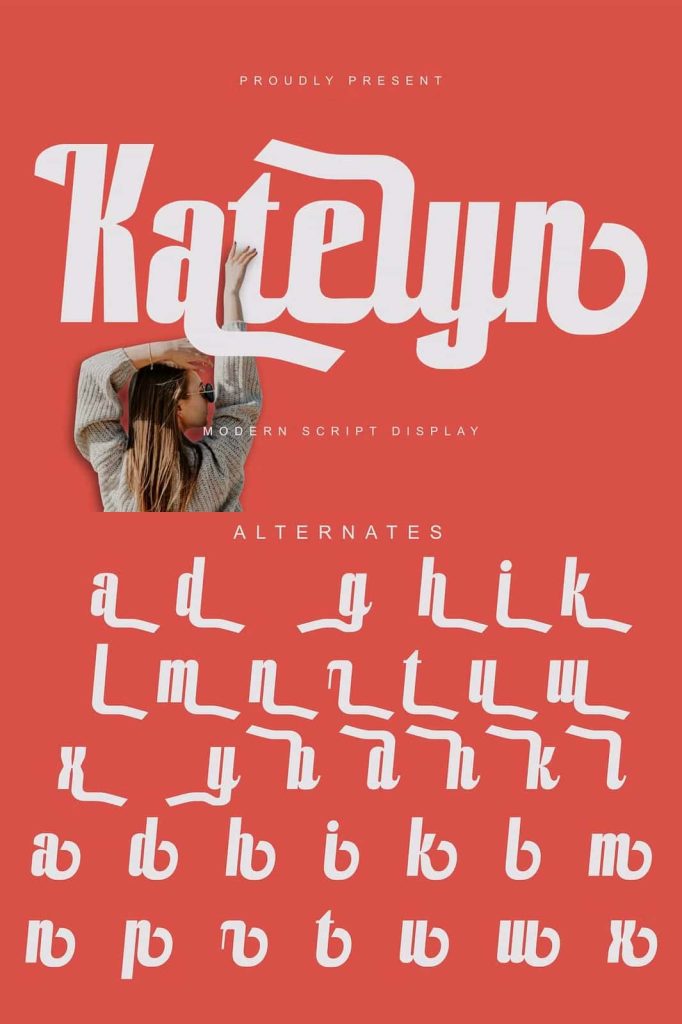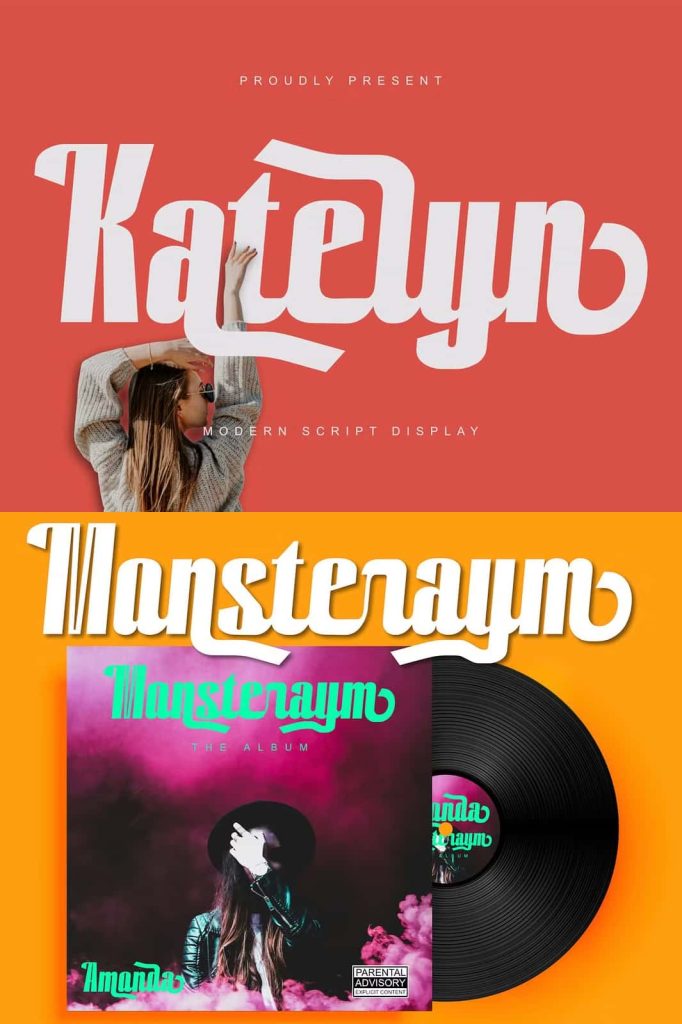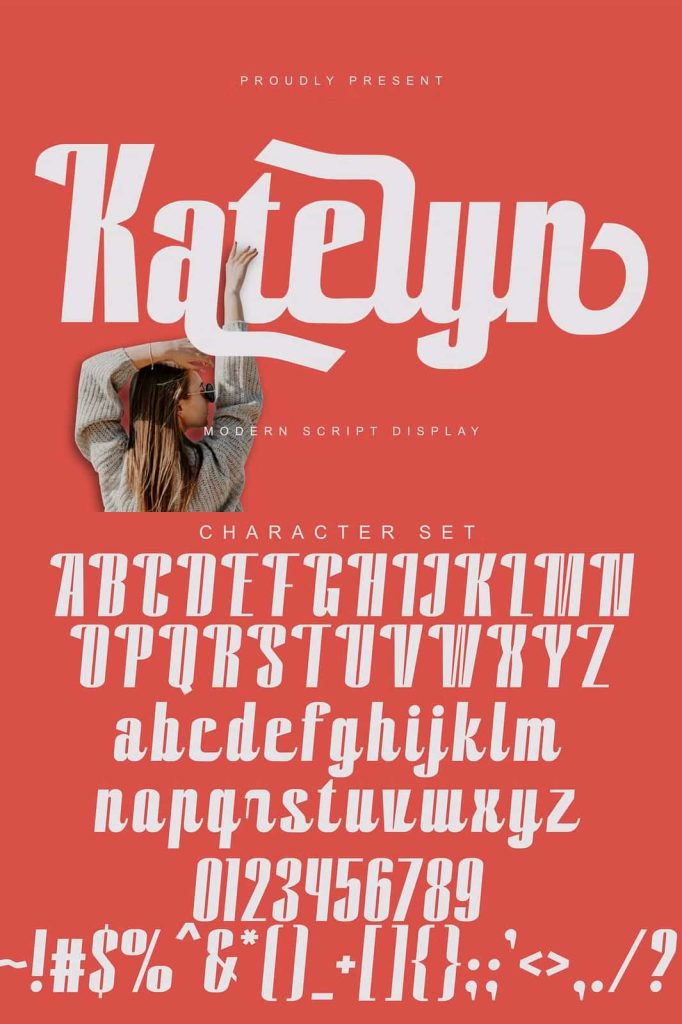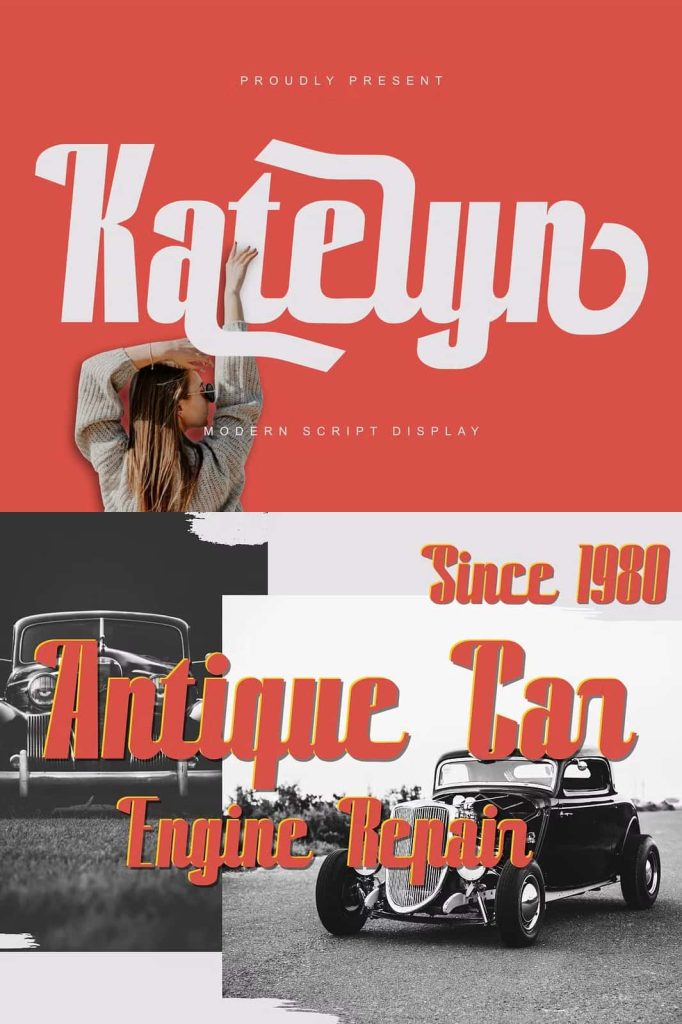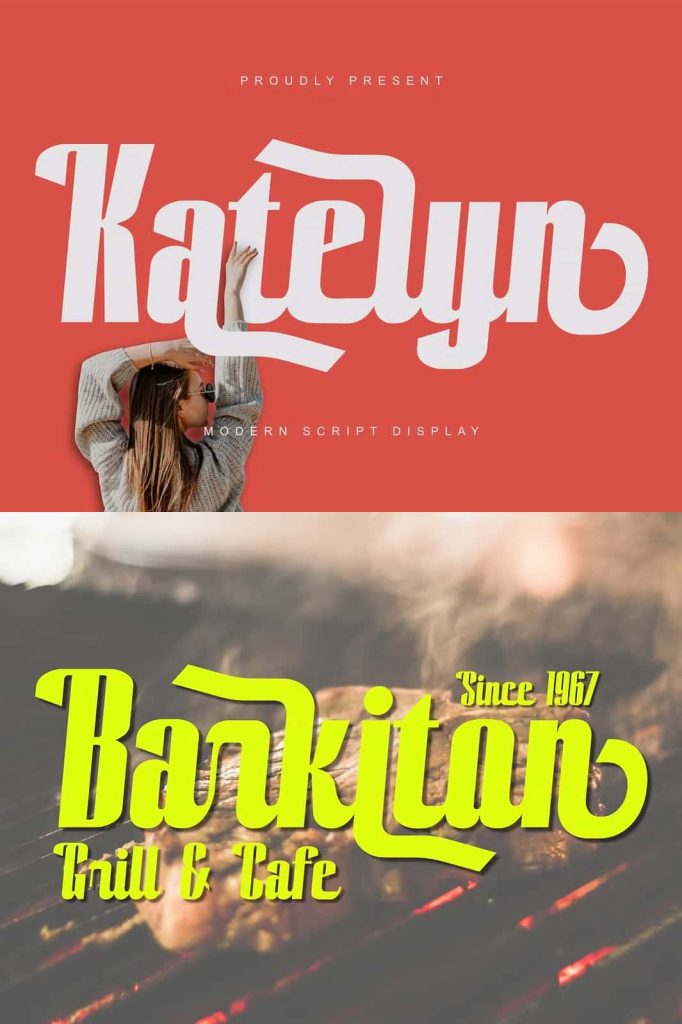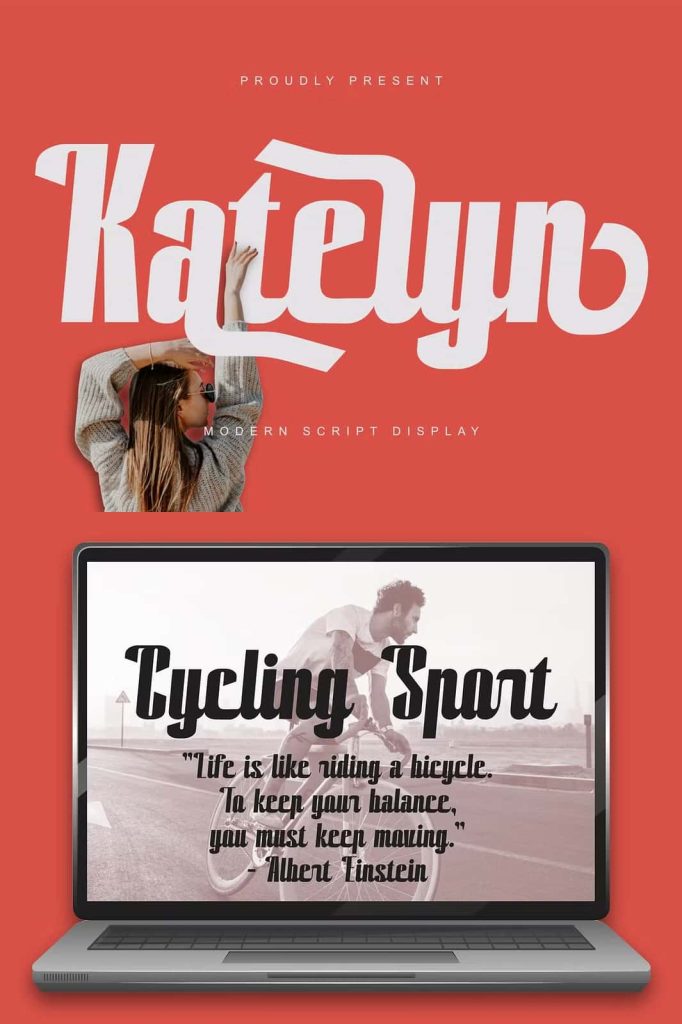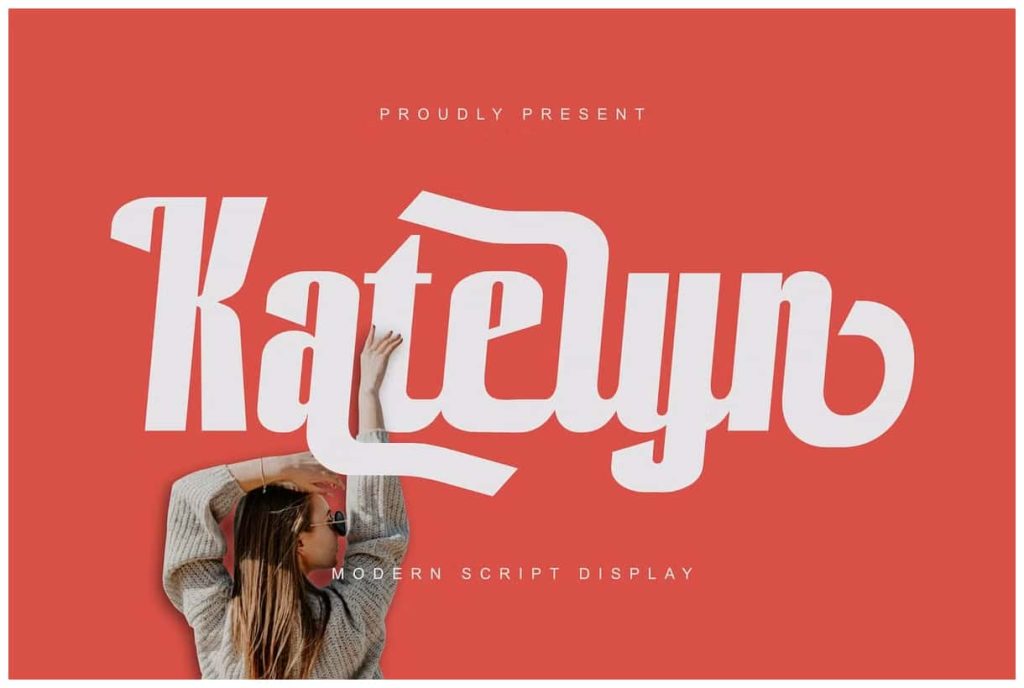
Katelyn – Modern Script Display
Katelyn Modern Script Display is a refined and stylish typeface designed to add elegance and sophistication to your creative projects.